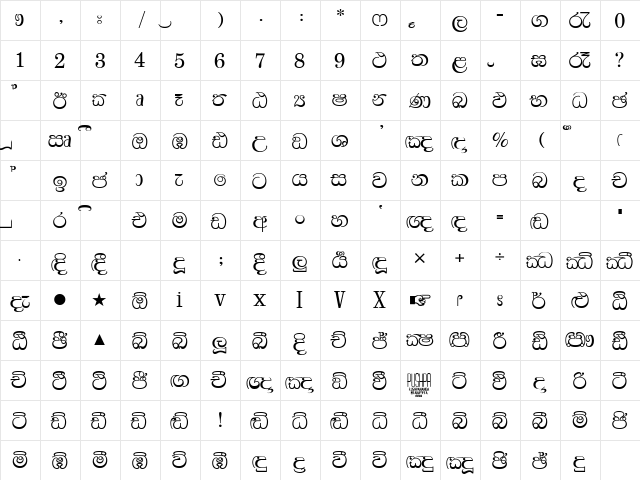
FMBindumathi x Font Preview
FMBindumathi x
FMBindumathi x Font Details
| Style | x |
Design Context for FMBindumathi Typeface
FMBindumathi offers clean, dependable letterforms without strong stylistic allegiance, making it a practical choice for designers who need flexibility.